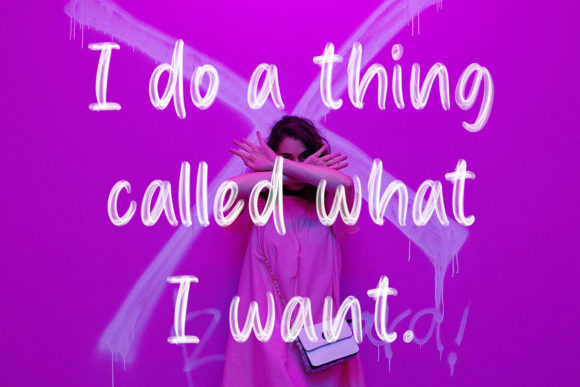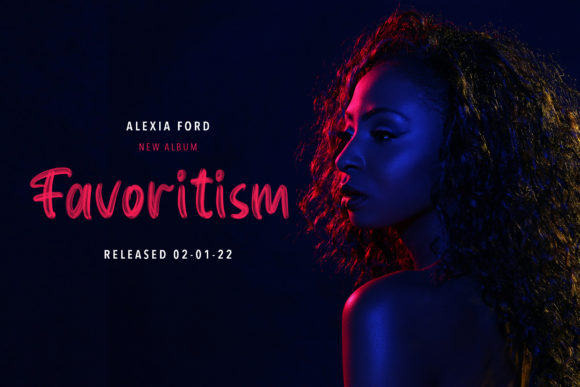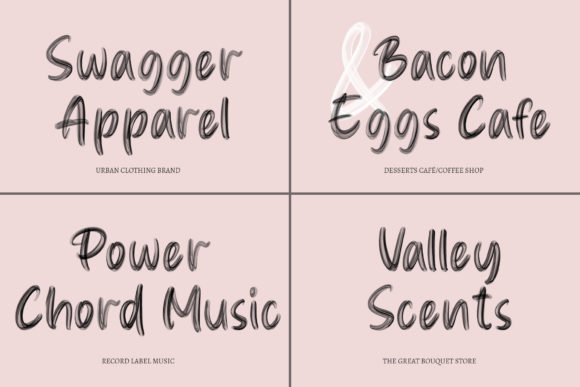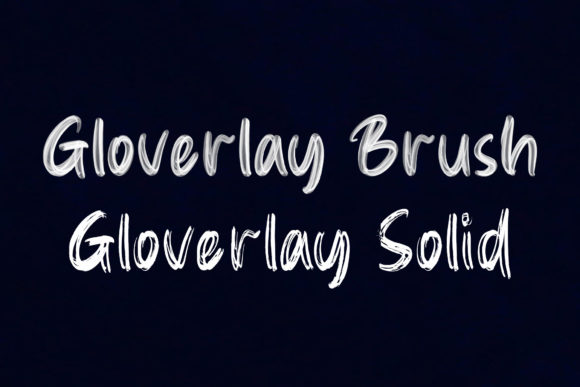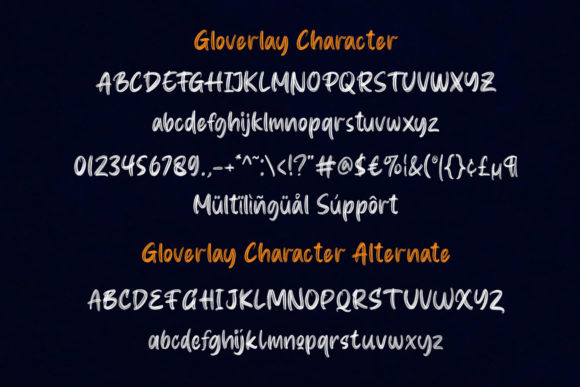
Gloverley Font
About Gloverley Font
Gloverley is a sweet and quirky handwritten font. Designed with the help of a brush pen, this font will make your creative ideas stand out in a unique way!